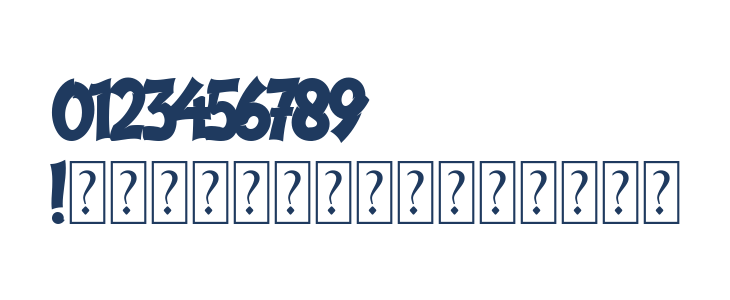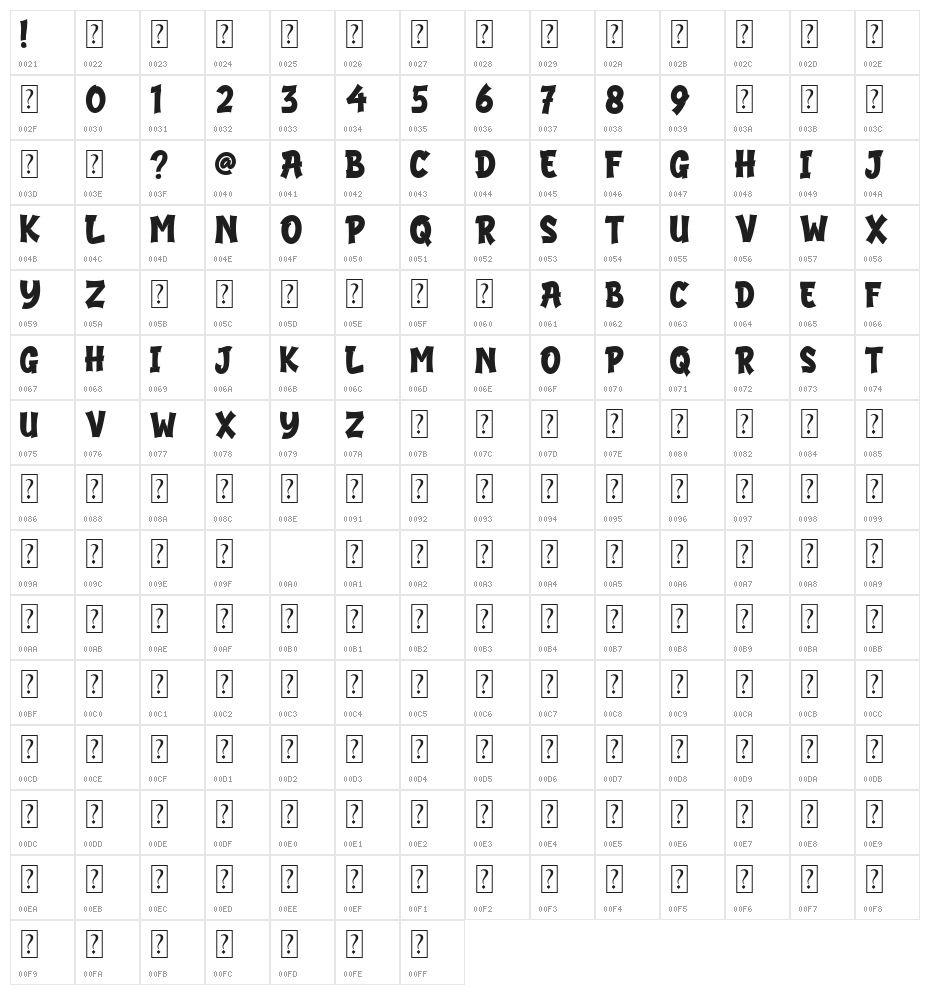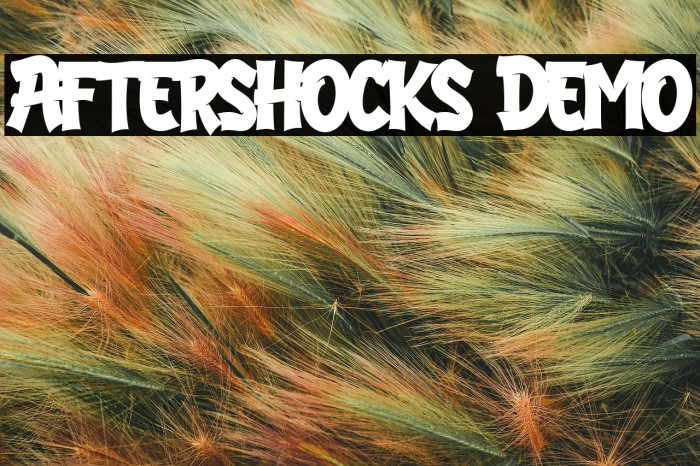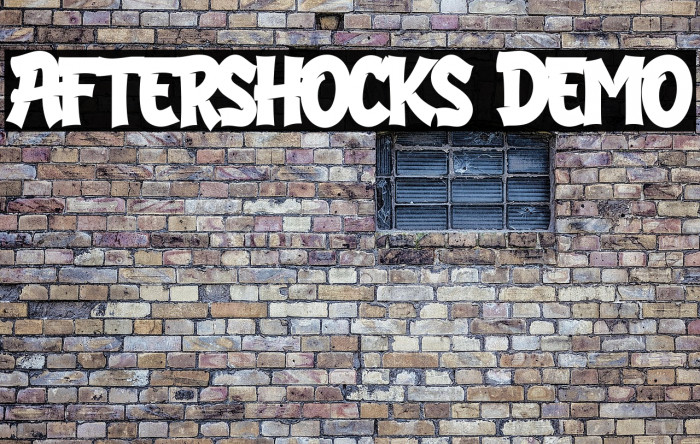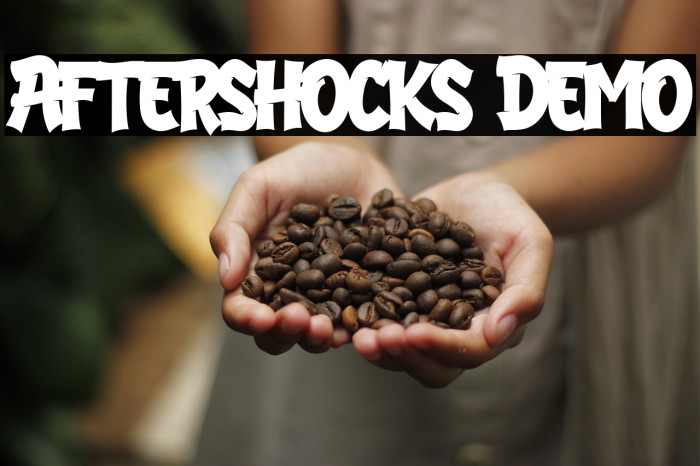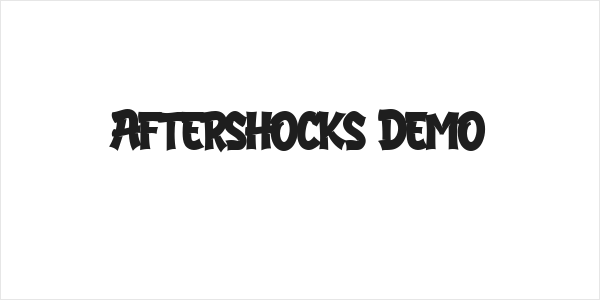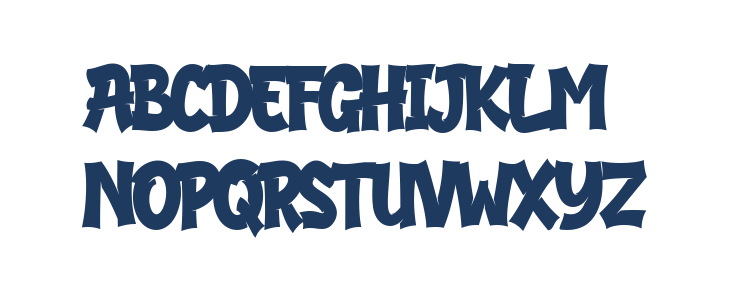
Aftershocks Demo Font
Aftershocks Demo Description
This font features a bold and dynamic style with a graffiti-like appearance. The letters are thick and angular, giving a sense of movement and energy. The uppercase and lowercase characters maintain a consistent style, with sharp edges and a slightly aggressive look. The numbers and special characters follow the same bold and impactful design, making them stand out. This font is perfect for projects that require a strong and eye-catching typeface.
| Proposed Projects | Ideal for street art designs, music album covers, urban-themed posters, and edgy branding projects. |